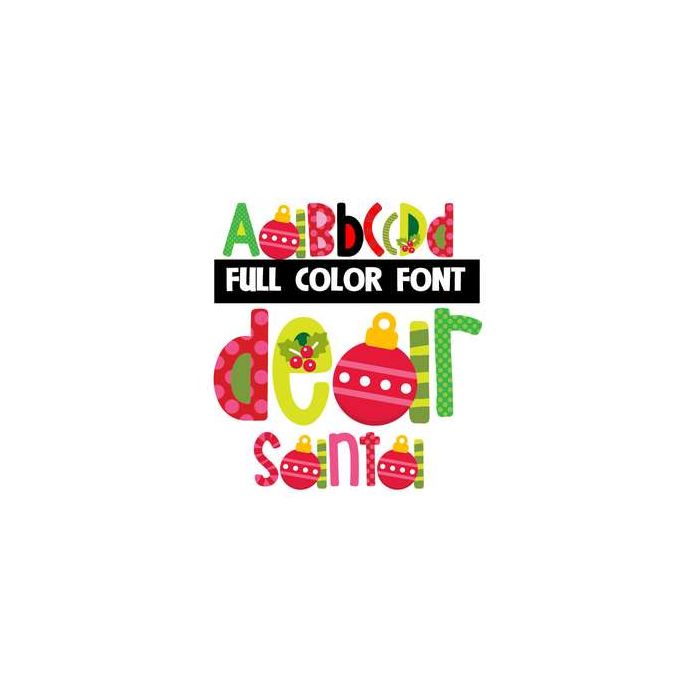
This full-color font features color Christmas patterns on youthful letters. This font works best for titles, displays, posters and more. Please note color fonts will show as black in non compatible programs. This font type is compatible with Silhouette Studio.